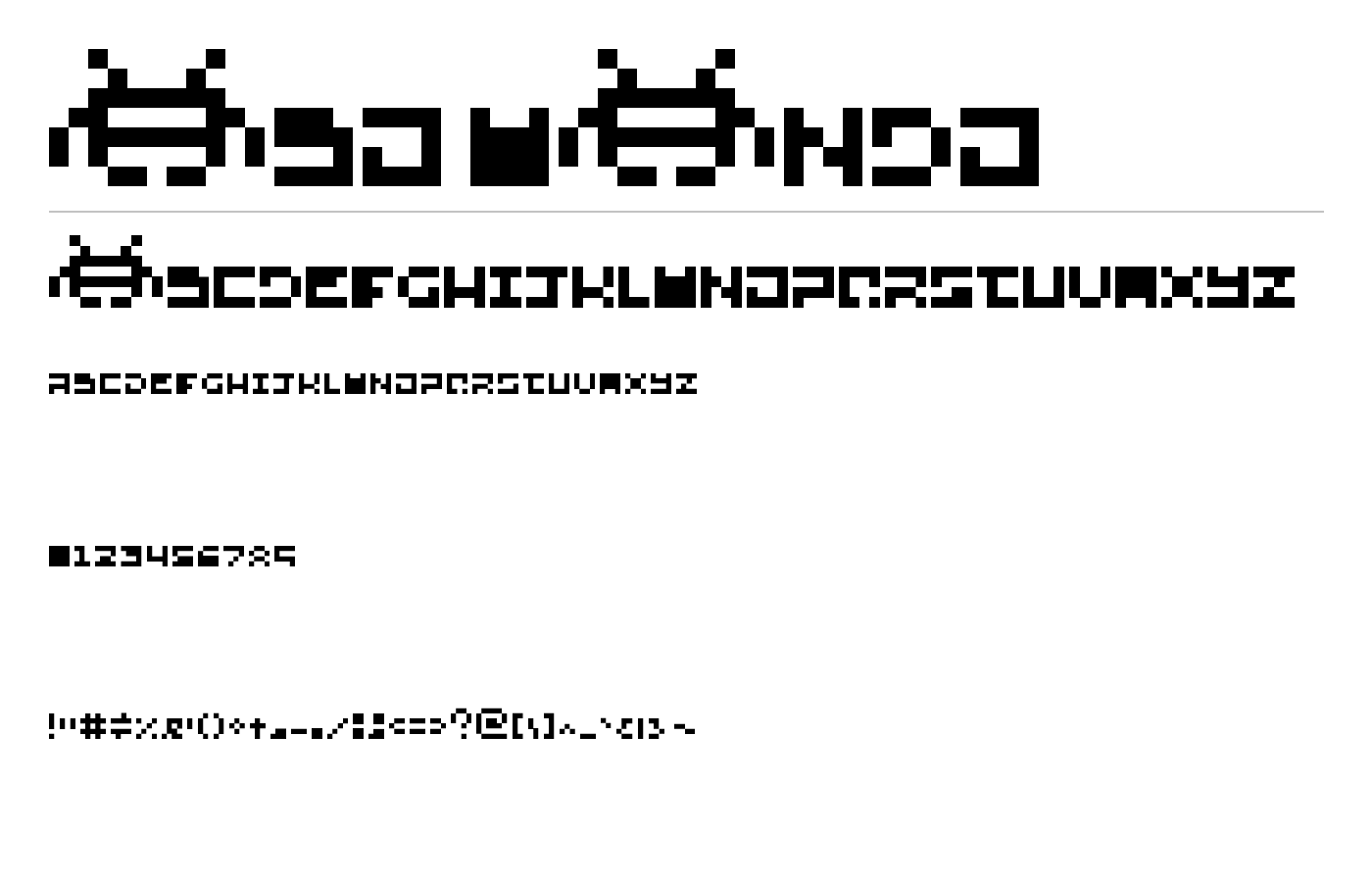
ABO MANDO is a pixelated, monospace sans serif font with a strong retro, 8-bit video game vibe. Its bold, blocky letterforms with uniform stroke widths create a playful yet technical feel, making it ideal for digital-themed designs, gaming graphics, and tech branding. This font shines in headlines and logos where a nostalgic, pixel-art aesthetic is desired.
ABO MANDO Font
About ABO MANDO Font
| Font family | ABO MANDO Font |
| Designer | MR2104 |